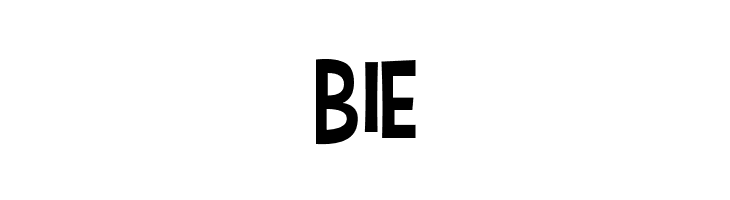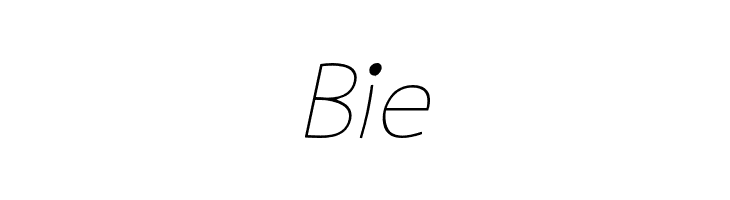
A bold, vintage serif font with rounded serifs and a slightly condensed style.
A bold, modern font with uniform stroke width and slightly condensed characters.
A bold, modern font with clean lines and a slightly condensed style.
A bold, italic font with dynamic, thick strokes and a slightly condensed style.
A bold, playful font with thick, rounded, and slightly irregular characters.
A bold, modern sans-serif font with high contrast and slightly condensed width.
A sleek, modern, and slightly italicized font with thin strokes and a minimalist design.